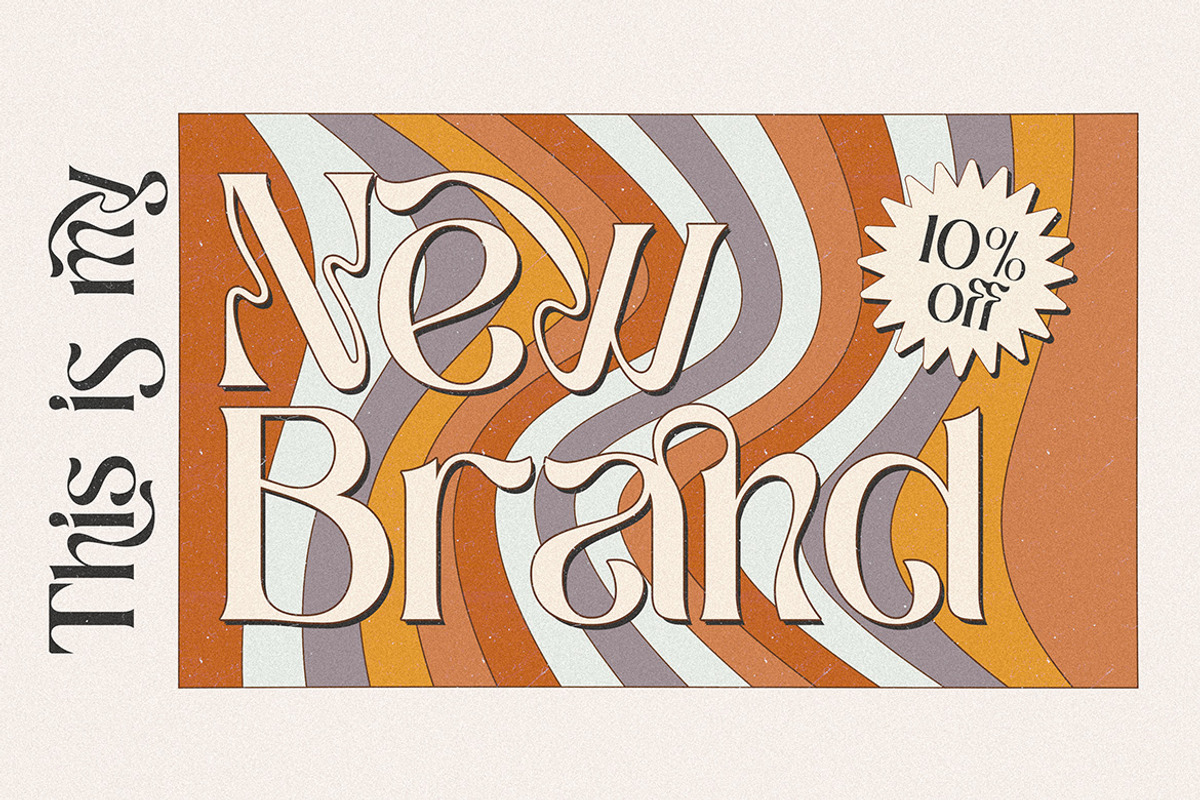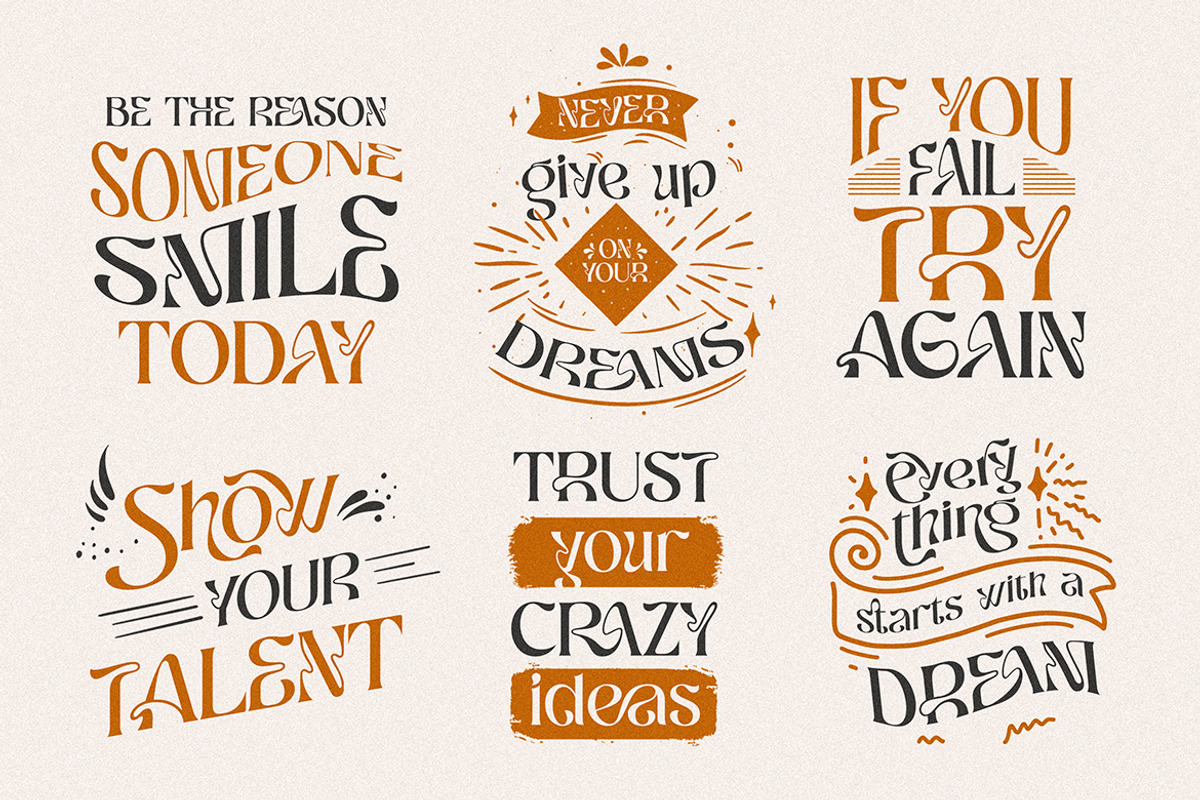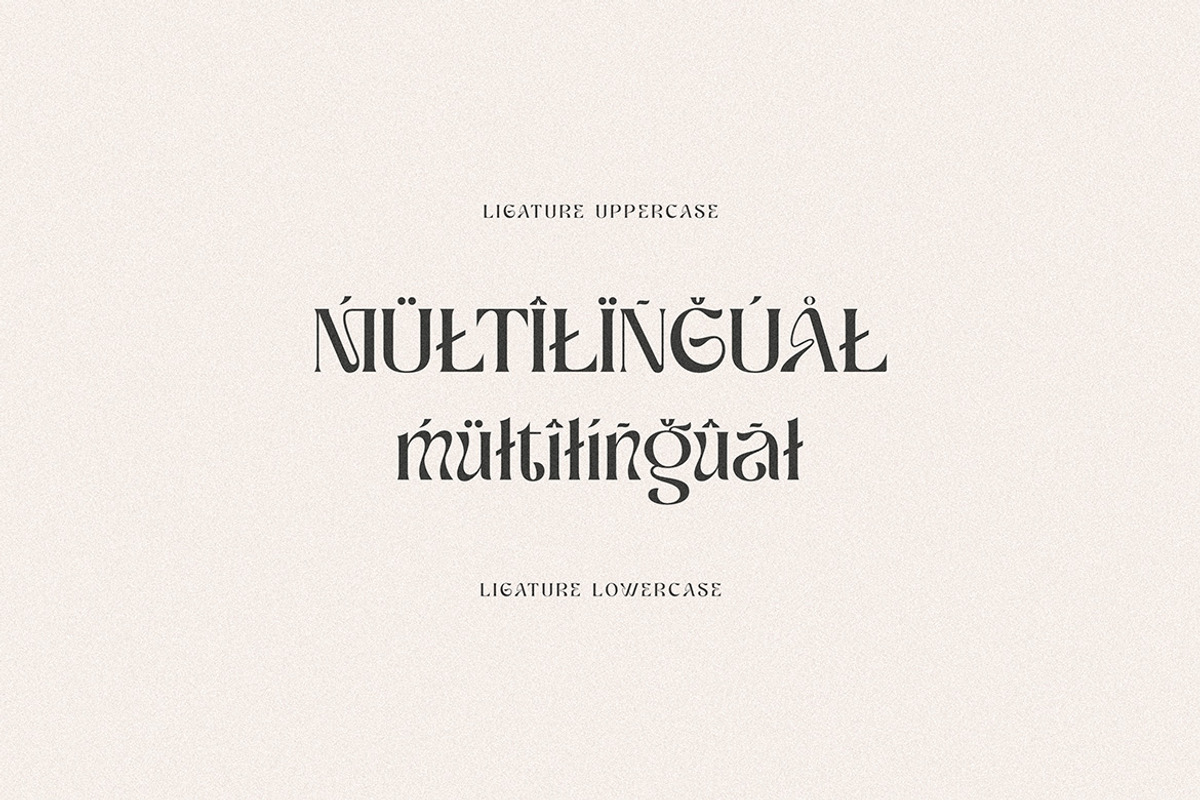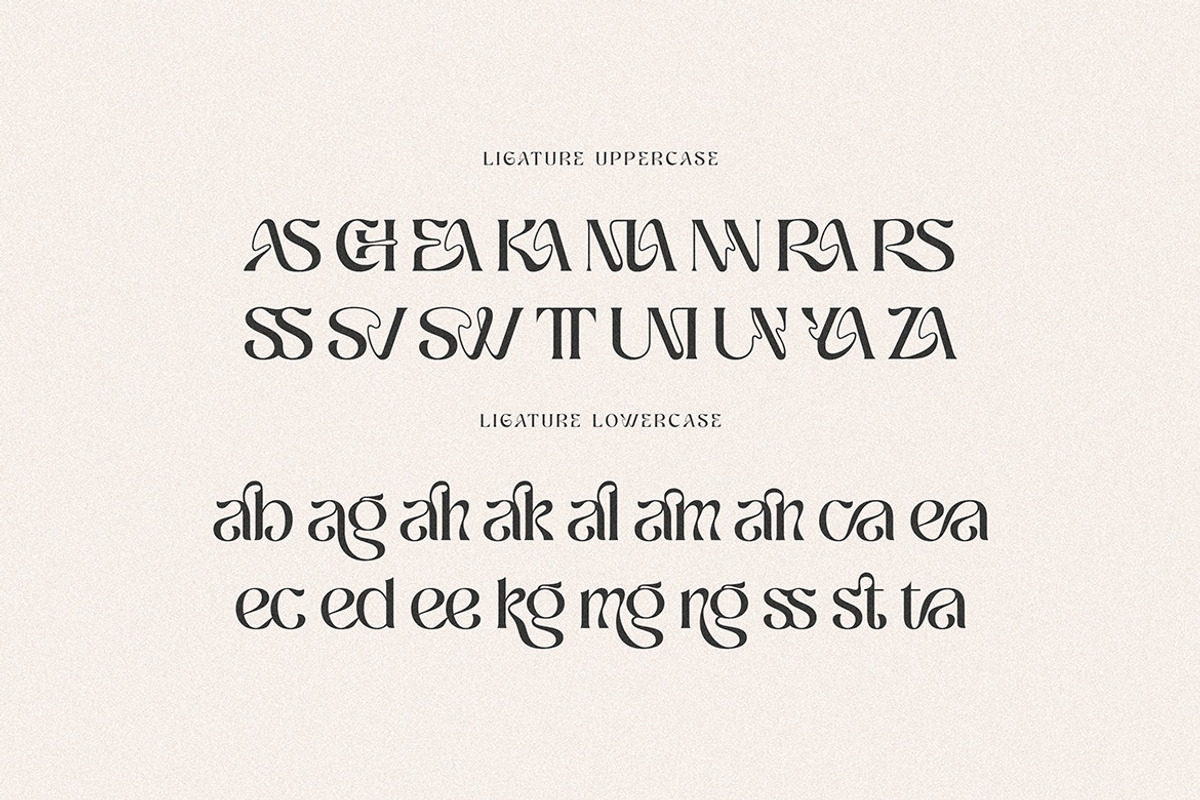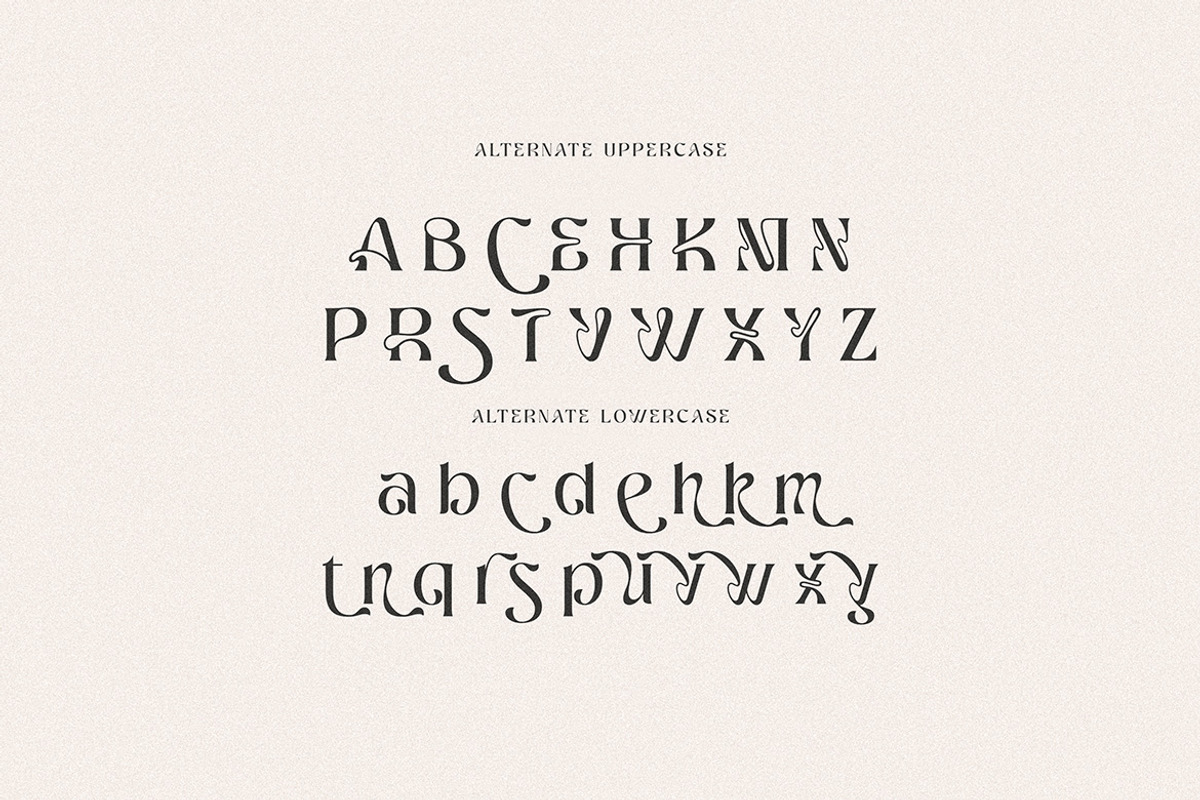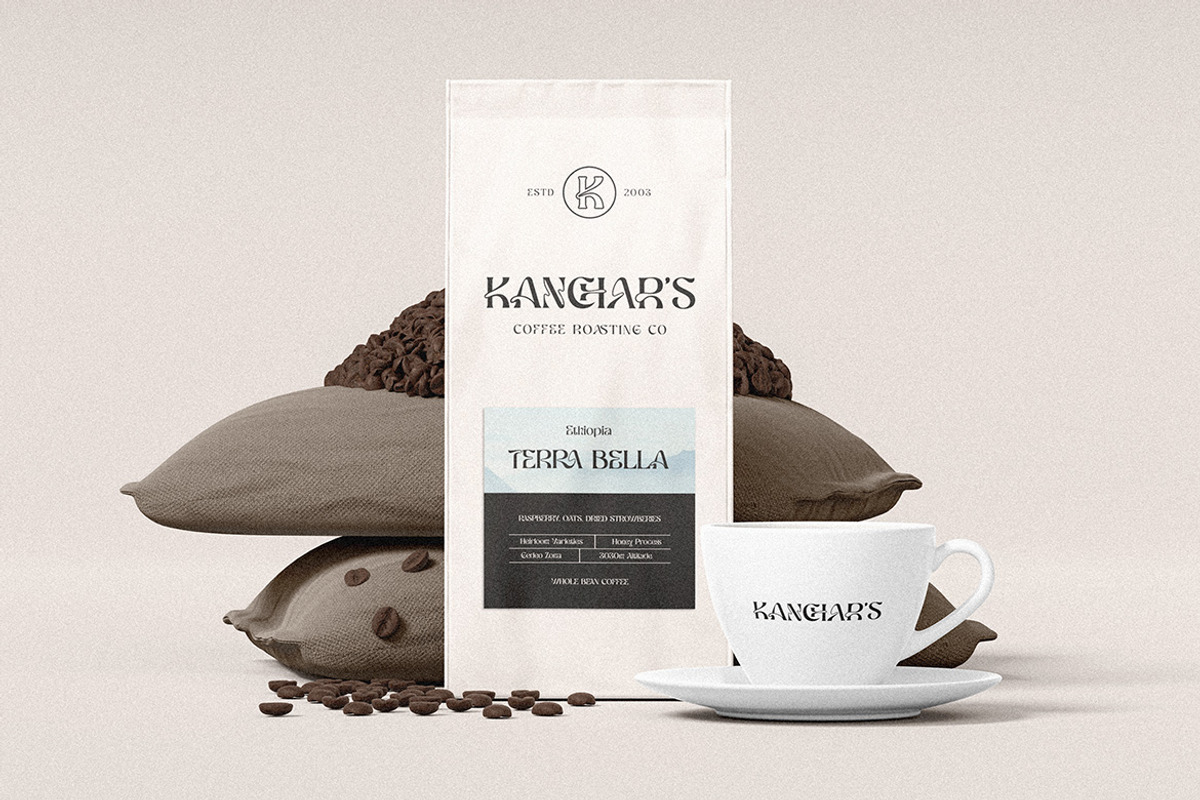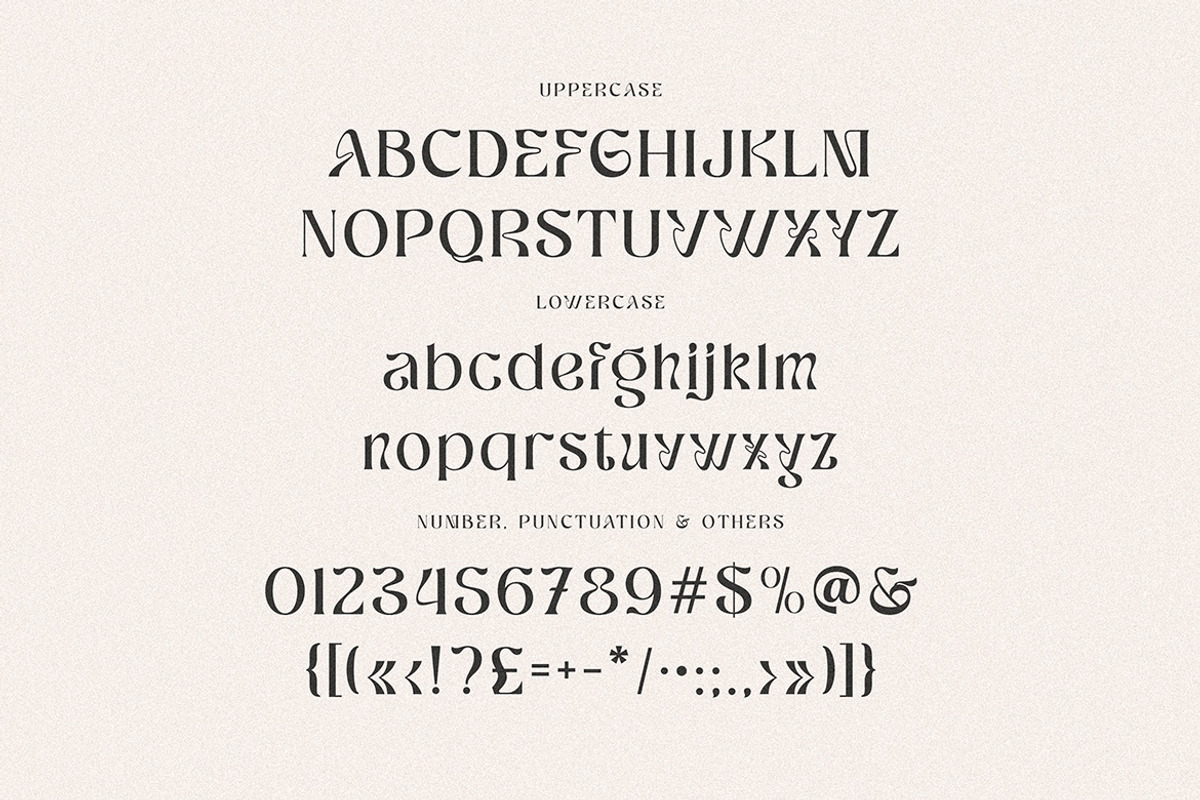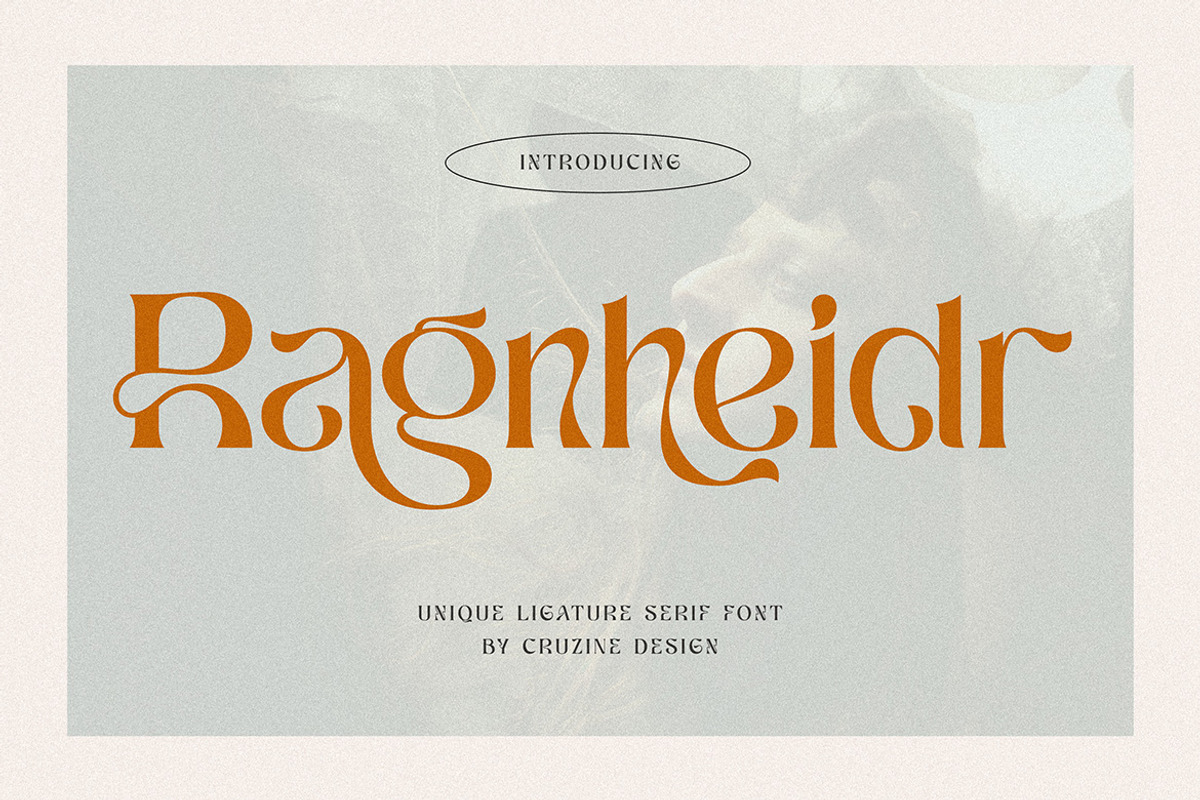
Ragnheidr Unique Serif
Trendy, elegant, luxury, retro & modern style serif font for your new fancy projects. Stylish, decorative and classic style on Ragnheidr serif font will be great for any modern branding project. Lot of alternates and ligatures will help you to create unique and original logo design or website header! Enjoy :)
- Alternate characters
- Lot of ligatures
- Great for modern branding projects!